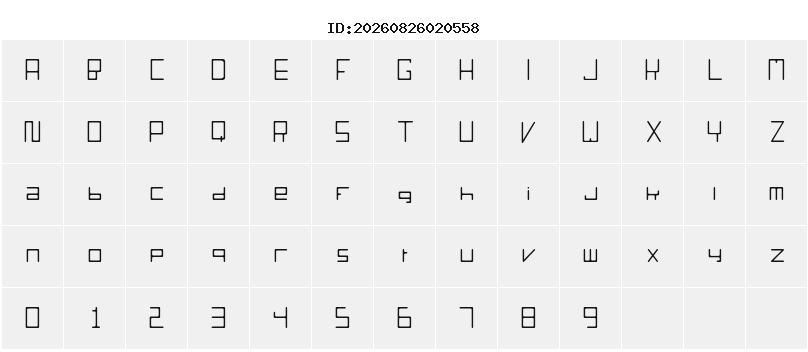
S'orieno Preview
• Font Name: S'orieno
• Font ID: S'orieno:Version 1.00
• Full Font Name: S'orieno
• Version: Version 1.00 September 4, 2012, initial release
• PostScript Name: S'orieno
About S'orieno.ttf
S'orieno.ttf is a modern, elegant sans-serif font designed for ultimate readability and visual harmony. Perfect for branding, headlines, web design, and print materials.